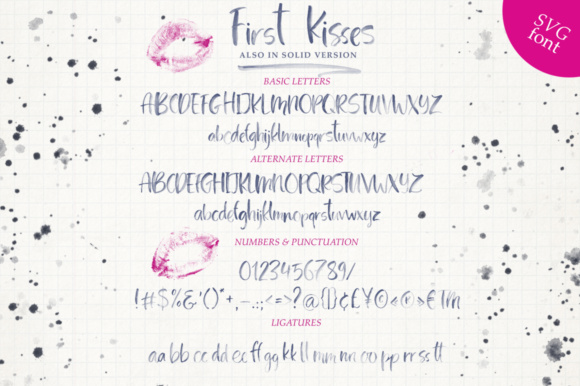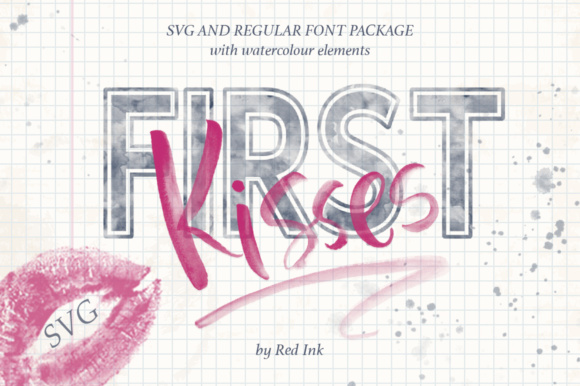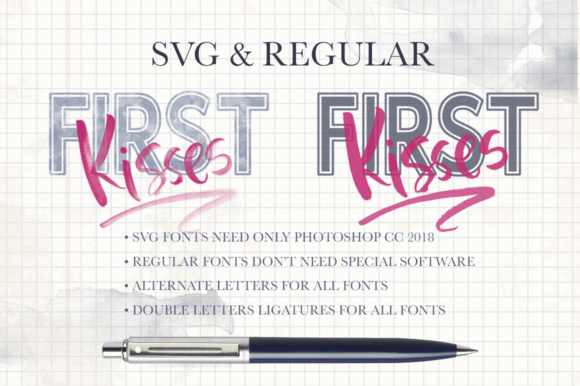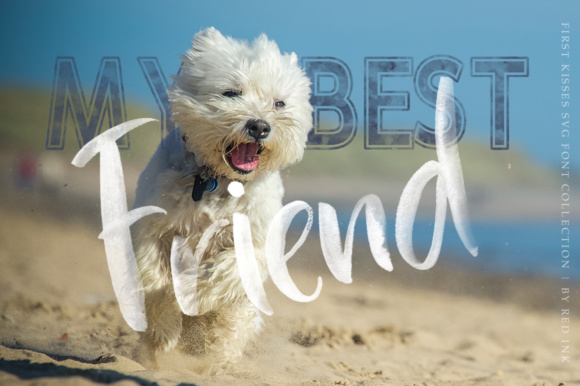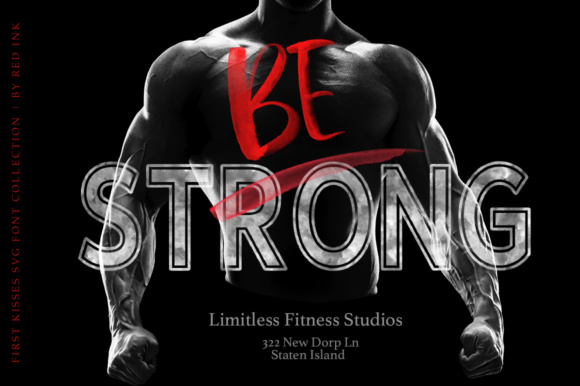
Introduction to First Kisses Font
Do you remember the excitement of planning a creative project, pouring over design resources, and finally bringing your vision to life? It’s a moment that sparks joy and satisfaction, and for designers, it’s a feeling that never gets old. One of the most crucial elements of a successful design is the typography, and a well-chosen font can make all the difference. That’s where the First Kisses Font comes in – a beautiful, hand-drawn watercolor collection that’s sure to add a touch of magic to your designs.
With its high-resolution letters and symbols, First Kisses Font is a treasure trove of creative possibilities. Its fully preserved watercolor texture and transparency of the letters make it a standout among design resources. Plus, the full set of alternate letters and double letter ligatures allows designers to add a real hand-drawn look to their designs, making them even more beautiful and unique.
Key Features of First Kisses Font
- High-quality design resource for creative projects, ideal for romantic and whimsical themes.
- Includes 2 unique font styles with a total of 96 glyphs.
- Perfect for designers and artists seeking a distinctive and elegant font for their projects.
Honest Review: First Kisses Font
As a designer, I’m always on the lookout for high-quality design resources to enhance my creative projects. The First Kisses Font is one such resource that caught my attention, and I’d love to share my honest review with you.
- ✨ The First Kisses Font offers a unique, hand-drawn style that adds a personal touch to any design project.
- ✨ The transparent background option provides flexibility for designers to easily integrate the font with their desired background image or color.
- ⚠️ The font’s hand-drawn style may not be ideal for projects requiring a highly polished, corporate look.
The First Kisses Font is perfect for:
Photography captions and quotes
Blog and website headers
Tips for Getting the Most Out of First Kisses Font
Use the First Kisses Font on a transparent background to create a subtle, elegant look.
Combine the font with other design elements, such as illustrations or graphics, to add visual interest.
Experiment with different font sizes and styles to create a unique, eye-catching design.
Alternatives to First Kisses Font